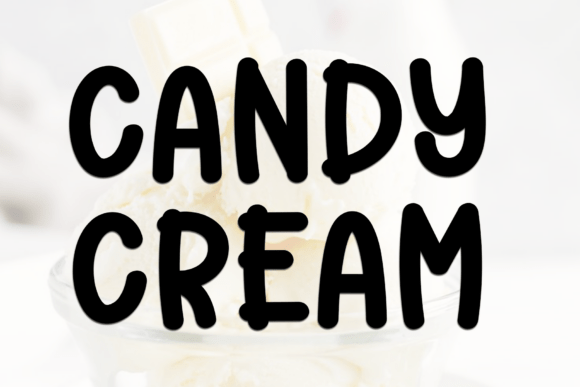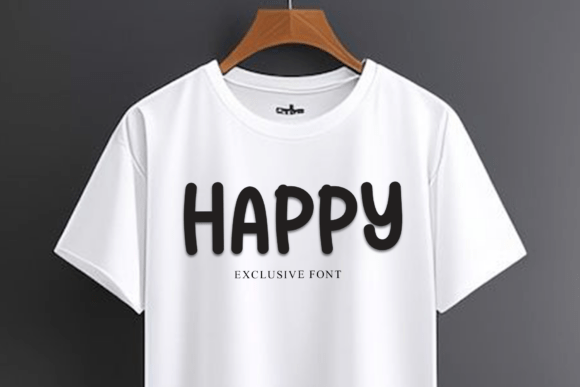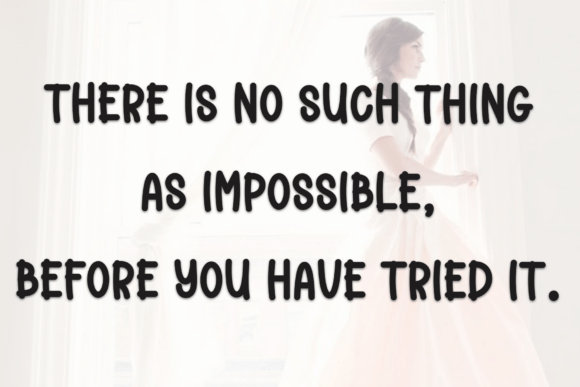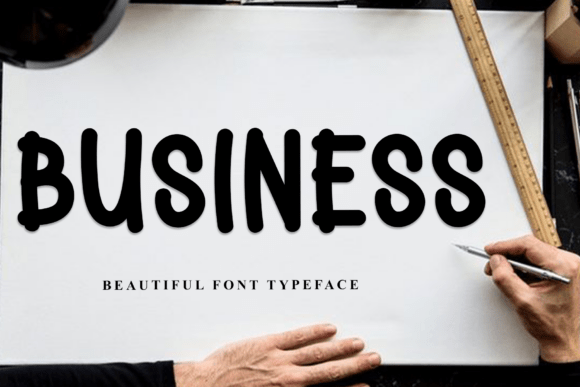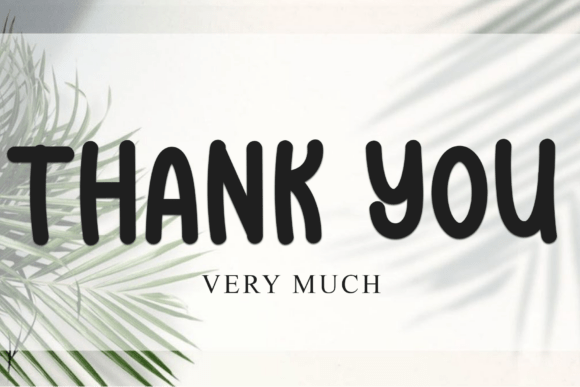
Meet the Font That’s About to Become Your New Best Friend
Remember the thrill of discovering a new font that makes your design projects pop? For many of us, it’s a moment that sparks creativity and gets our imagination running wild. Whether you’re a seasoned designer or a DIY crafter, finding the perfect font can be a game-changer. That’s where the Font Bundle Font comes in – a bold, rounded display font that’s designed to bring fun, legibility, and high-impact messaging to your work.
This versatile font is a staple for nursery decor, educational materials, and playful product packaging, making it an excellent choice for designers looking for a go-to headline font that works across both digital and print mediums. With its chunky, “friendly” terminals and consistent stroke weight, the Font Bundle Font is a “workhorse” display face that brings a sense of approachability and modern joy to any creative project.
Key Features of Font Bundle Font
- High-Resolution Design: The font is designed at 300 DPI, ensuring crisp and clear readability in high-resolution applications.
- Unique Character Set: Font Bundle Font features a unique character set, including a wide range of glyphs, accents, and special characters.
- Extensive Language Support: The font supports over 100 languages, making it a versatile choice for global design projects.
Font Bundle Font Review
Overall, I’m impressed with the Font Bundle Font – it’s a solid choice for any project. ✨
- Wide range of styles – From serif to sans-serif, there’s a style to suit every need.
- High-quality glyphs – The font is well-crafted, with clear and legible text.
- Support for multiple languages – This font is a great choice for projects that require language support.
- Easy to customize – The font is highly customizable, with options for size, color, and more.
- Limited bold weights ⚠️ – While the font has a good range of styles, the bold weights are a bit limited.
- No italic styles ⚠️ – It’s a shame that italic styles aren’t included, as this can be a bit restrictive.
Overall, I’d give the Font Bundle Font 4 out of 5 stars. It’s a solid choice for any project, but could benefit from a few more bold weights and italic styles.
Font Bundle Font: A Practical Application Guide
Experiment with different font sizes, colors, and styles to create a unique look. Use the Font Bundle Font in combination with other design elements to create a cohesive visual identity. Consider using the font in headings, titles, and body text to create a clear hierarchy of information.
The Font Bundle Font is ideal for creative projects, such as logos, branding materials, and marketing campaigns. It’s also suitable for academic and professional documents, such as reports, presentations, and resumes.